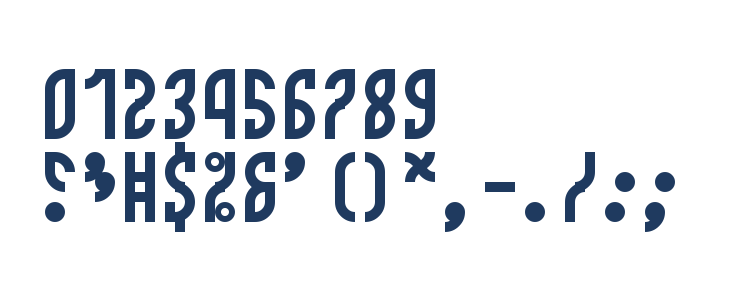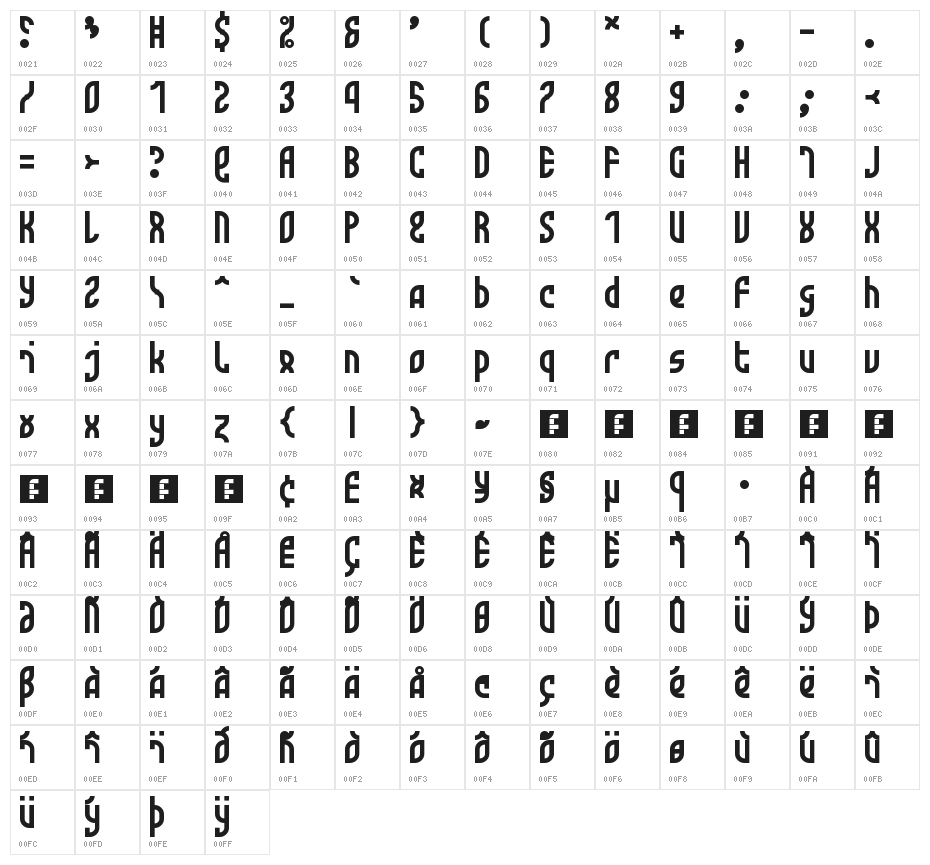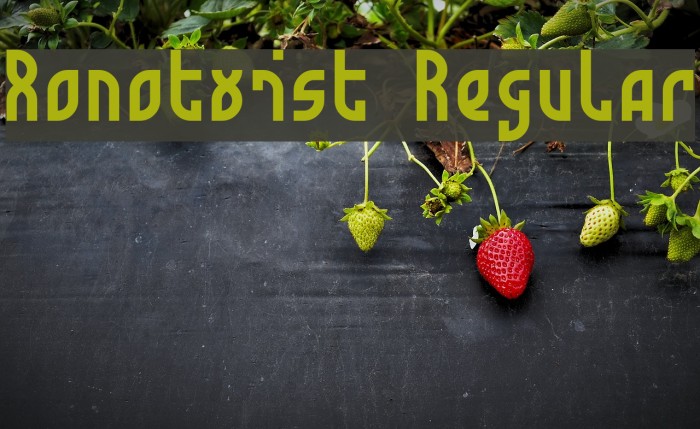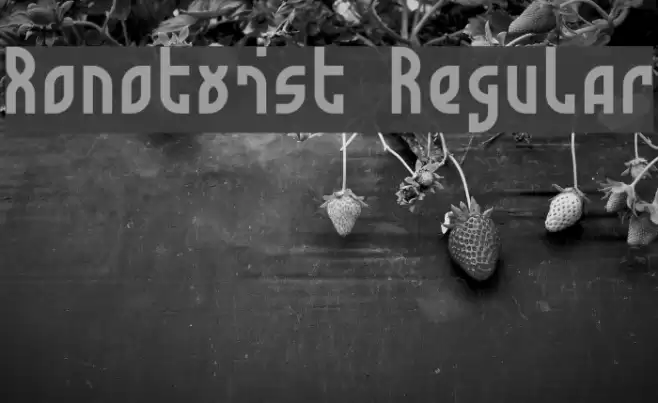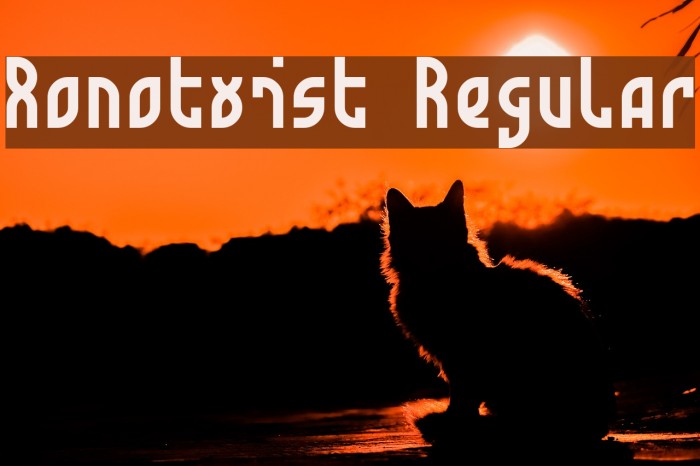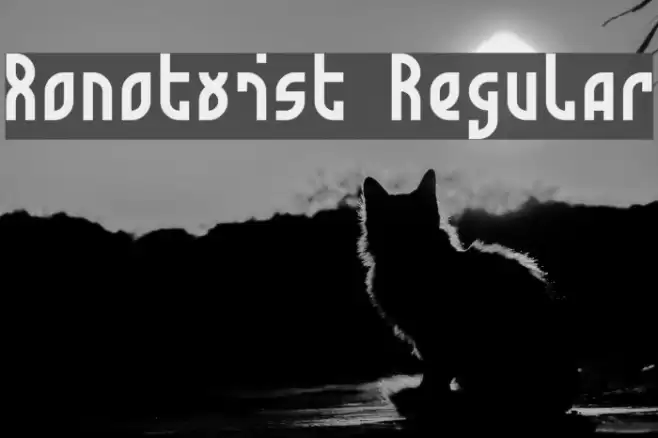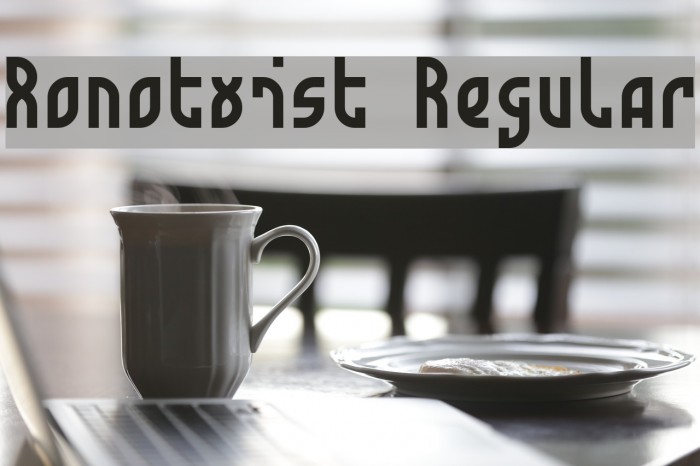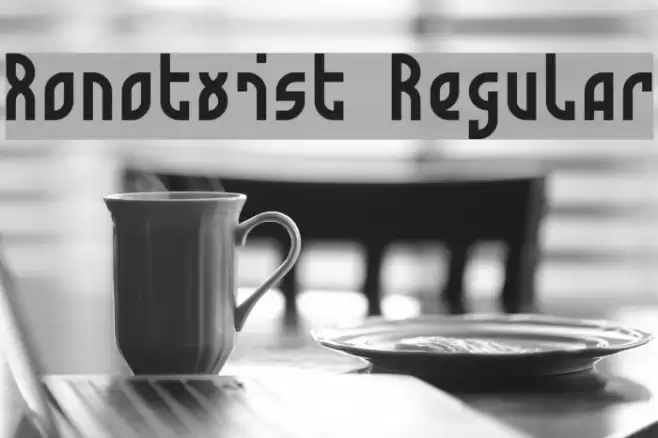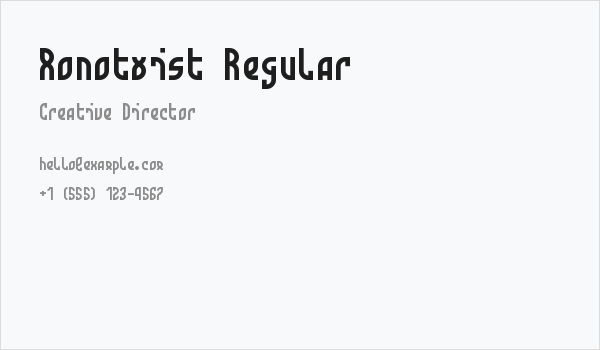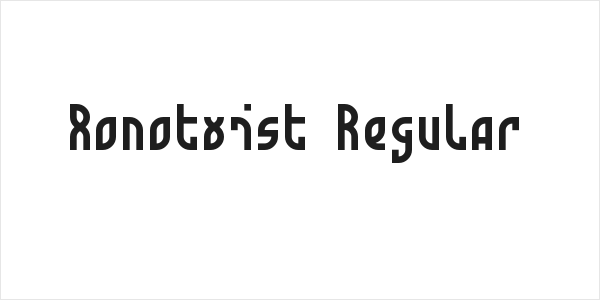
Monotwist Regular Font
Monotwist Regular Description
This font features a unique and modern design with a playful twist. The characters are bold and have a distinct geometric style, characterized by rounded edges and a consistent stroke width. The uppercase letters exhibit a strong presence with their tall and narrow forms, while the lowercase letters maintain a cohesive look with similar design elements. The numerals are equally bold, ensuring readability and consistency across different uses. Special characters are creatively designed, adding to the font's overall quirky and artistic appeal. This font is ideal for projects that require a bold statement and a modern aesthetic.